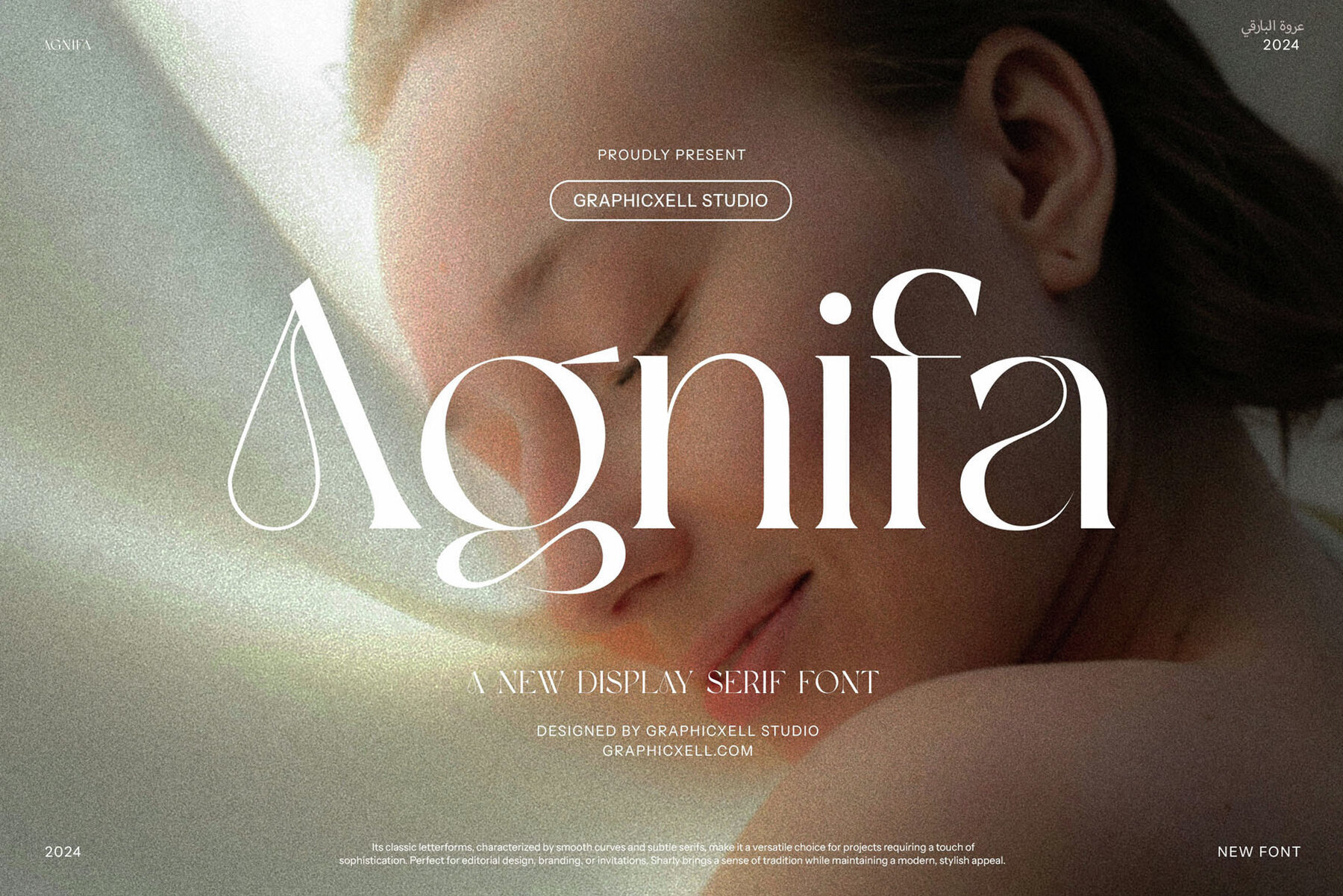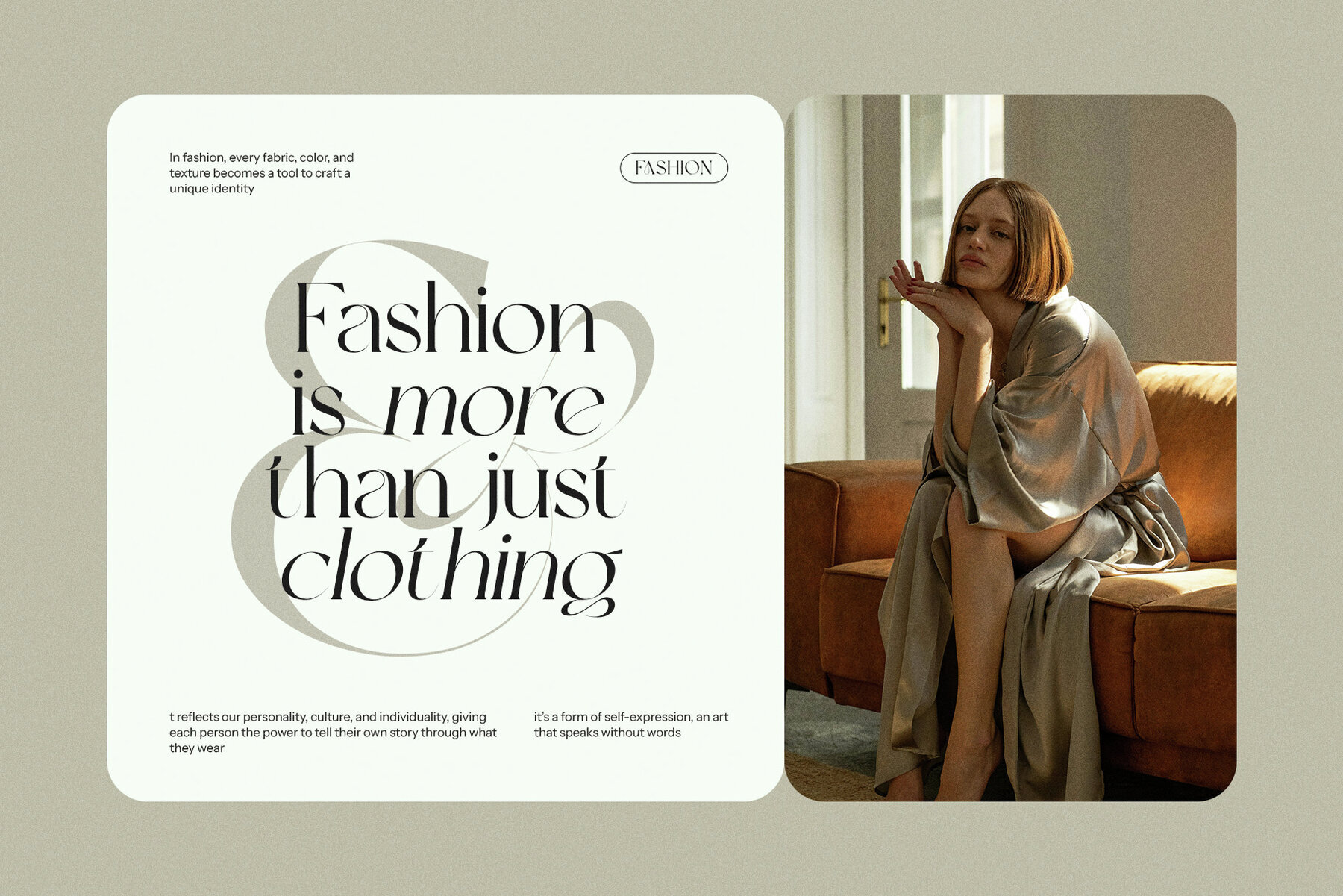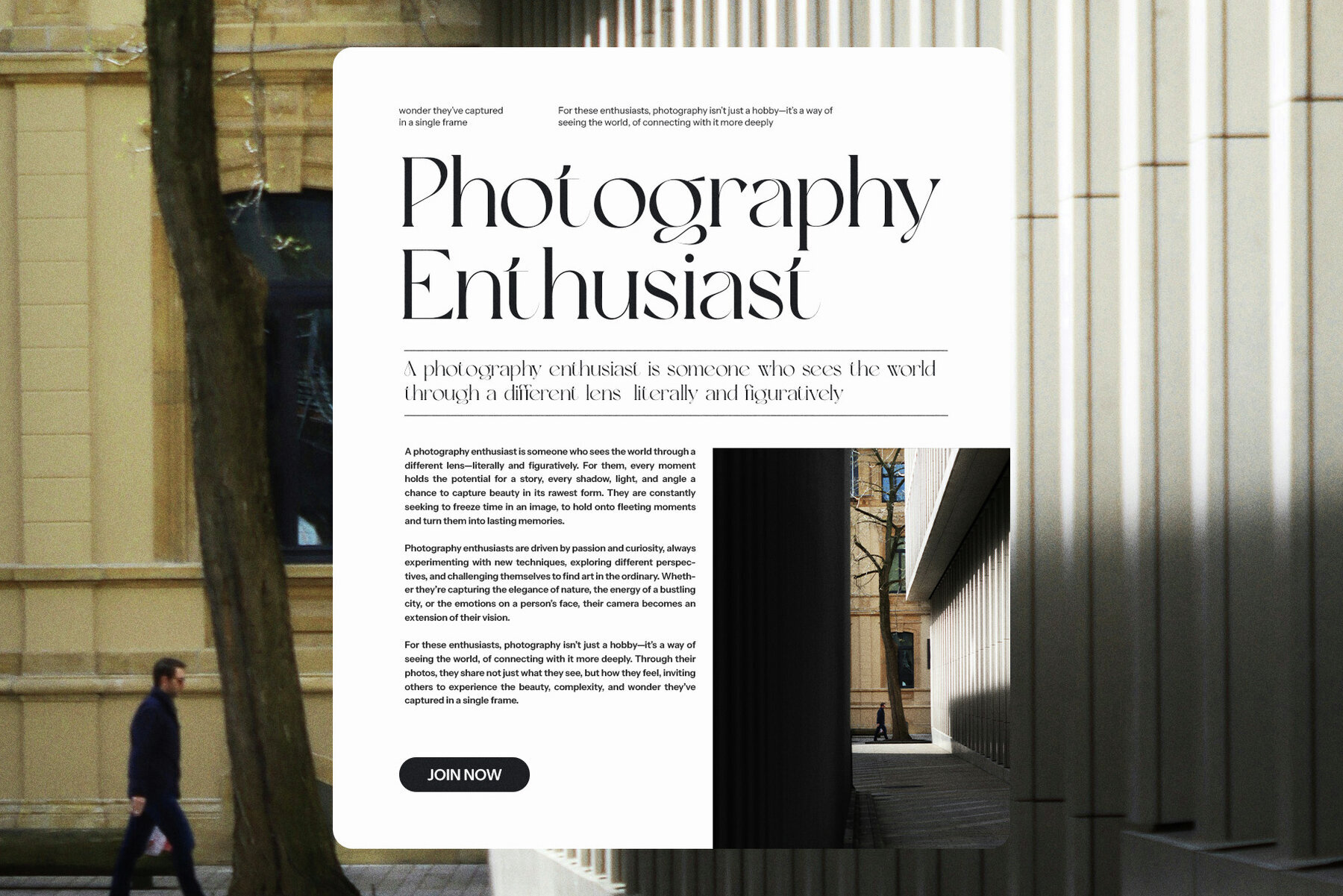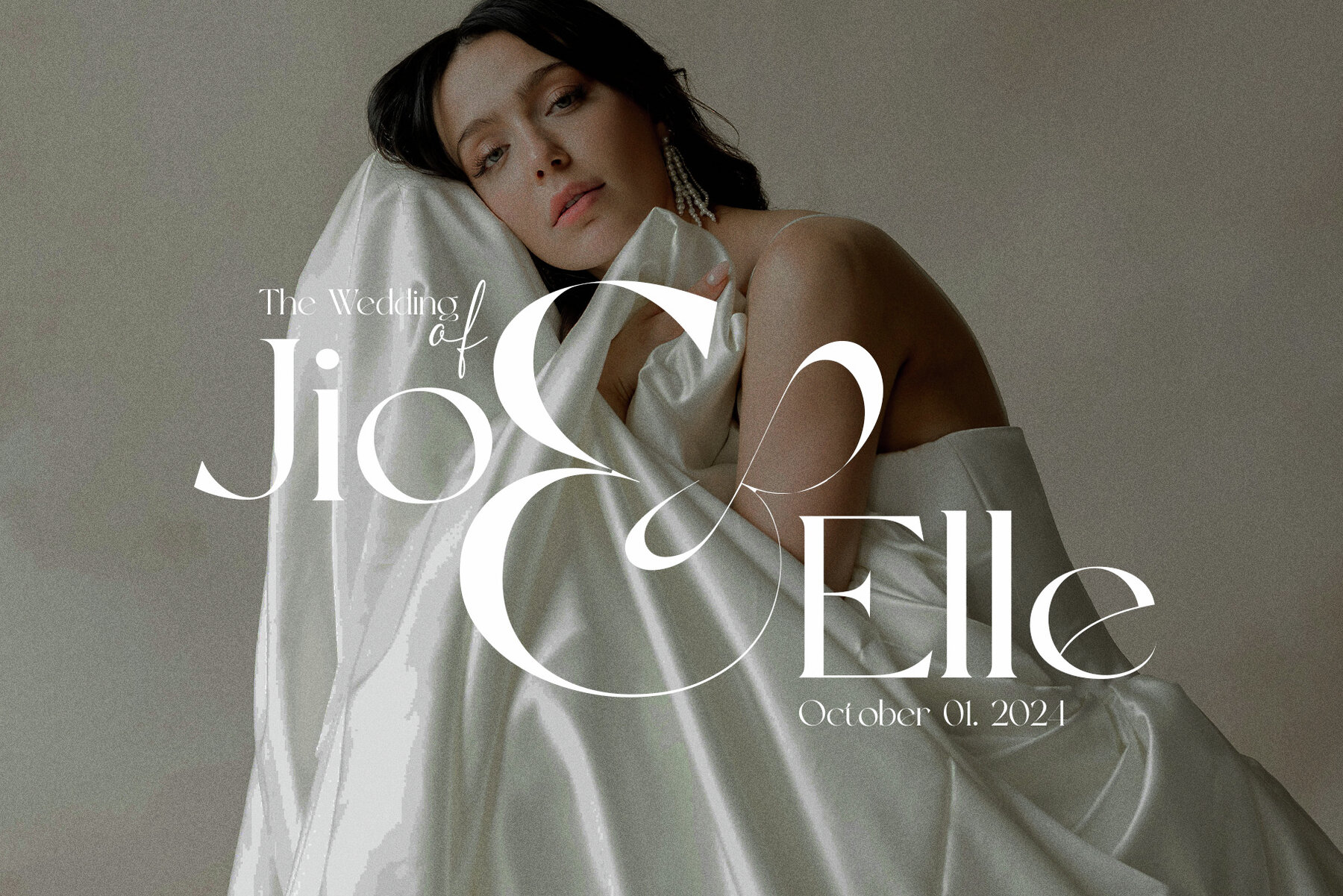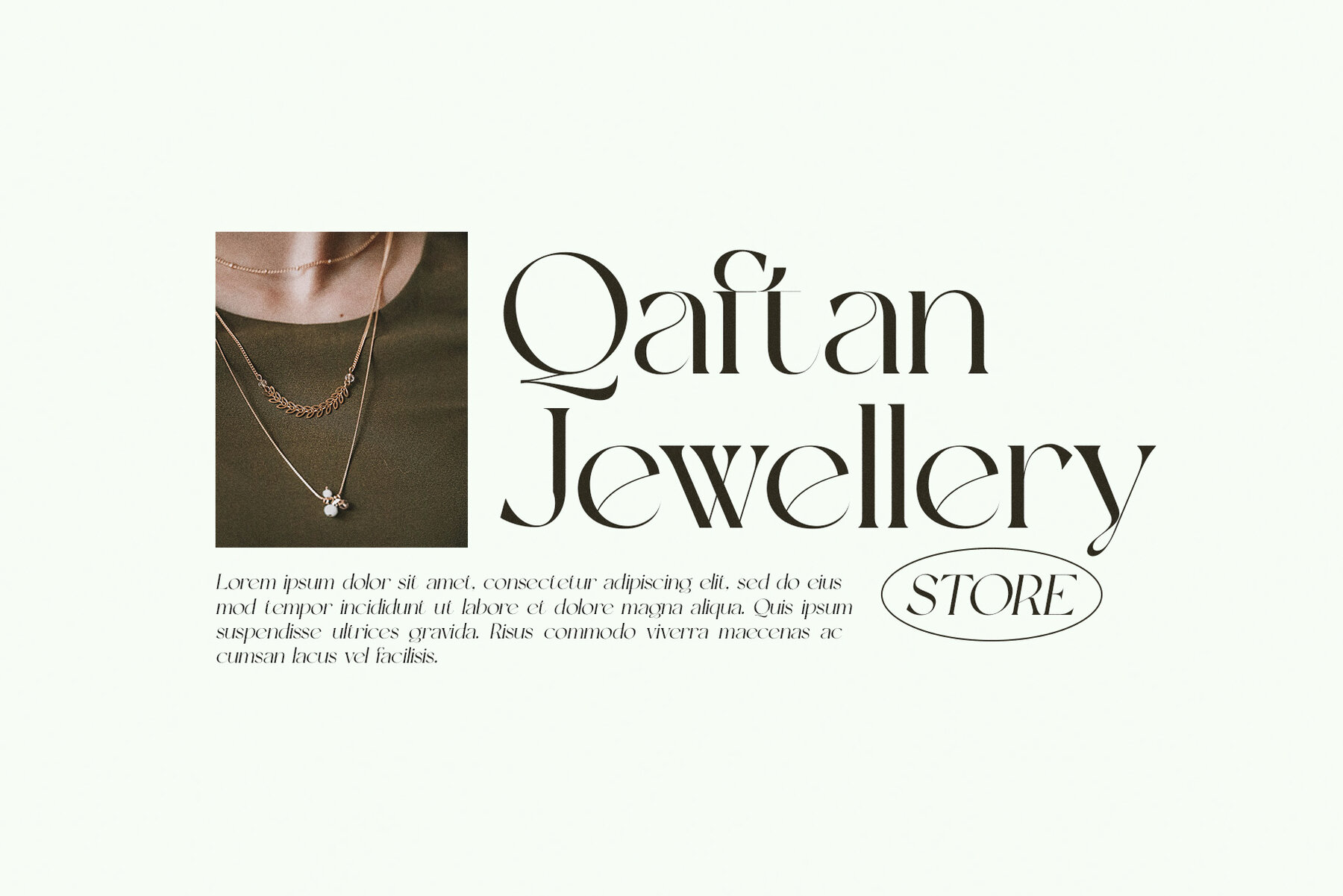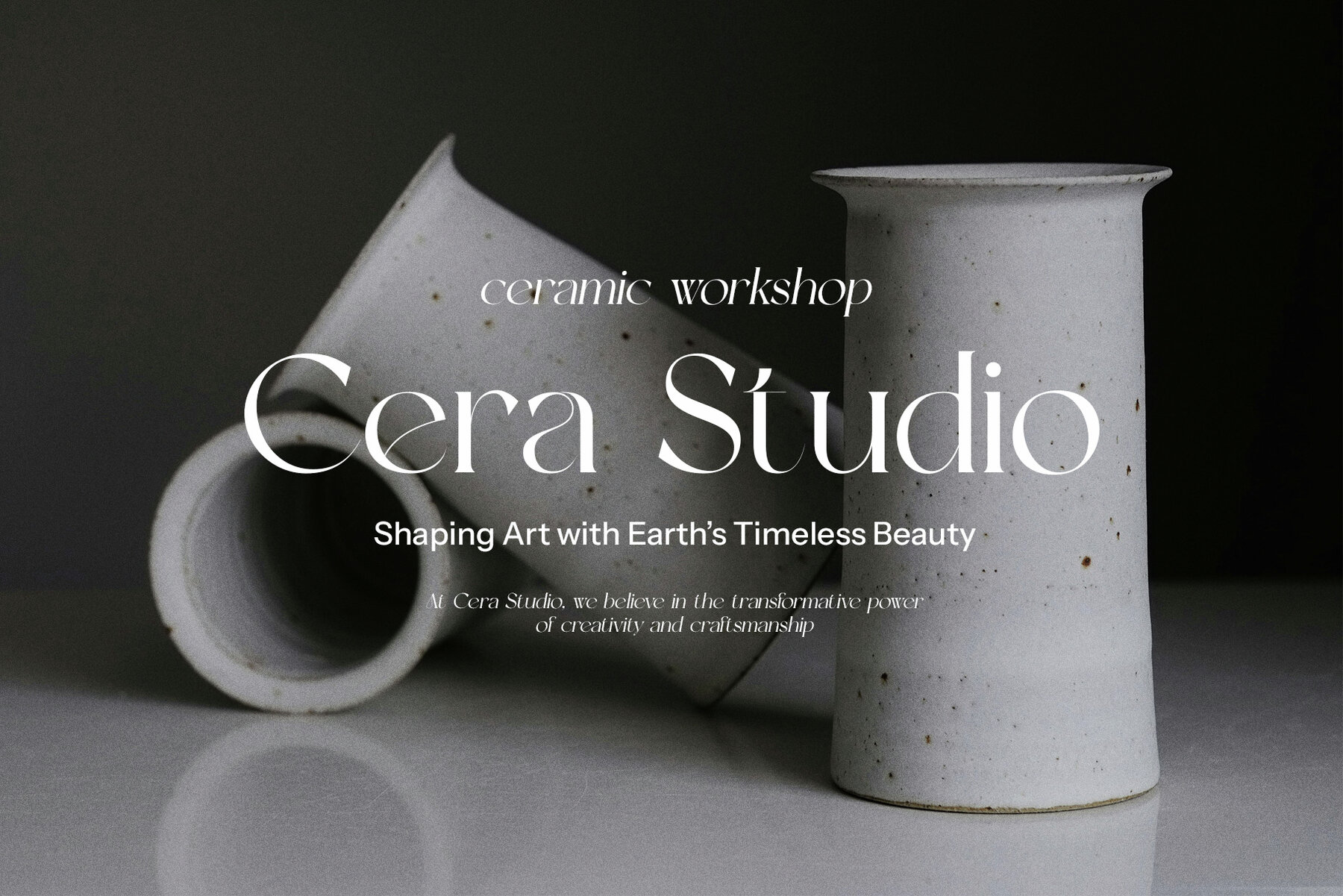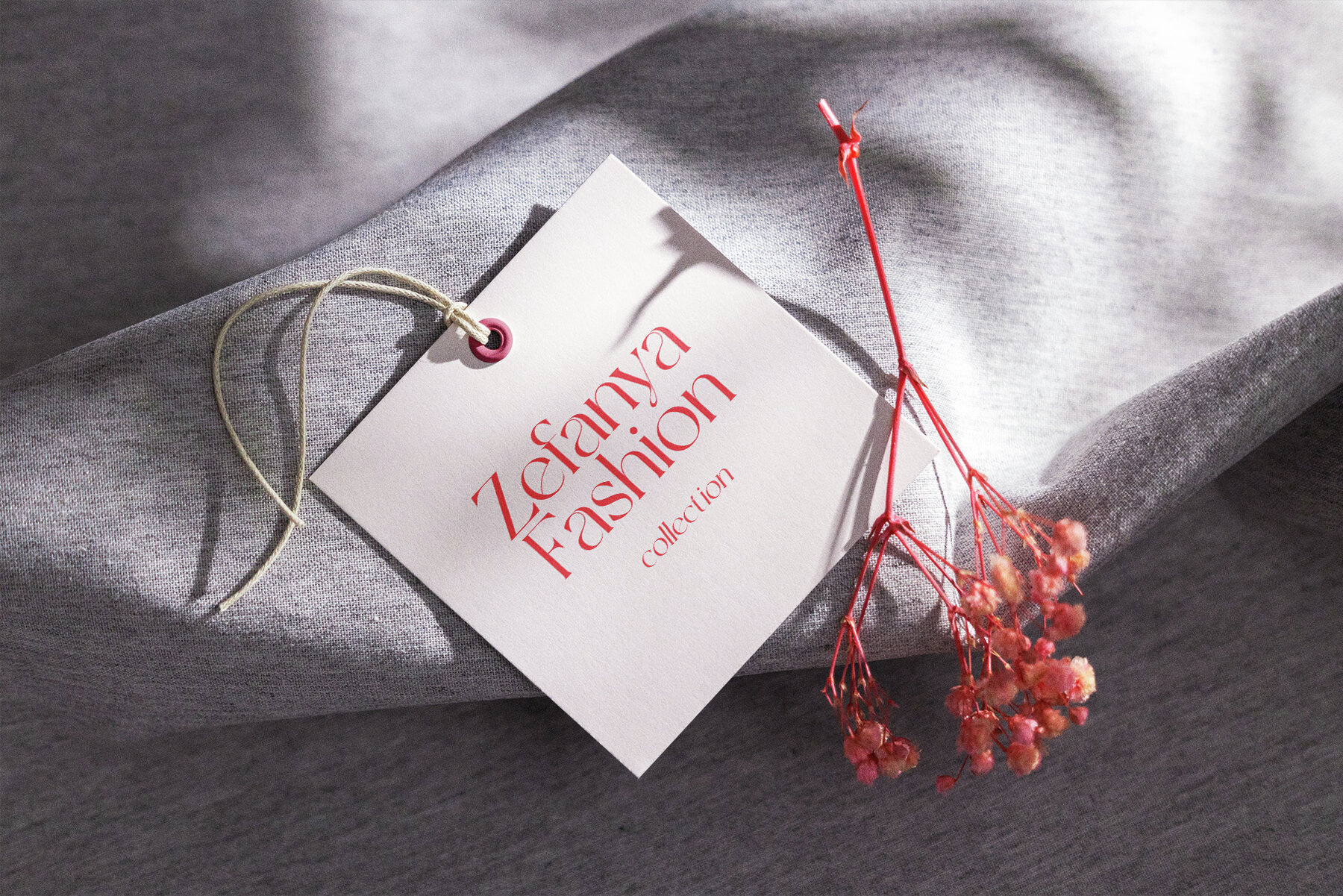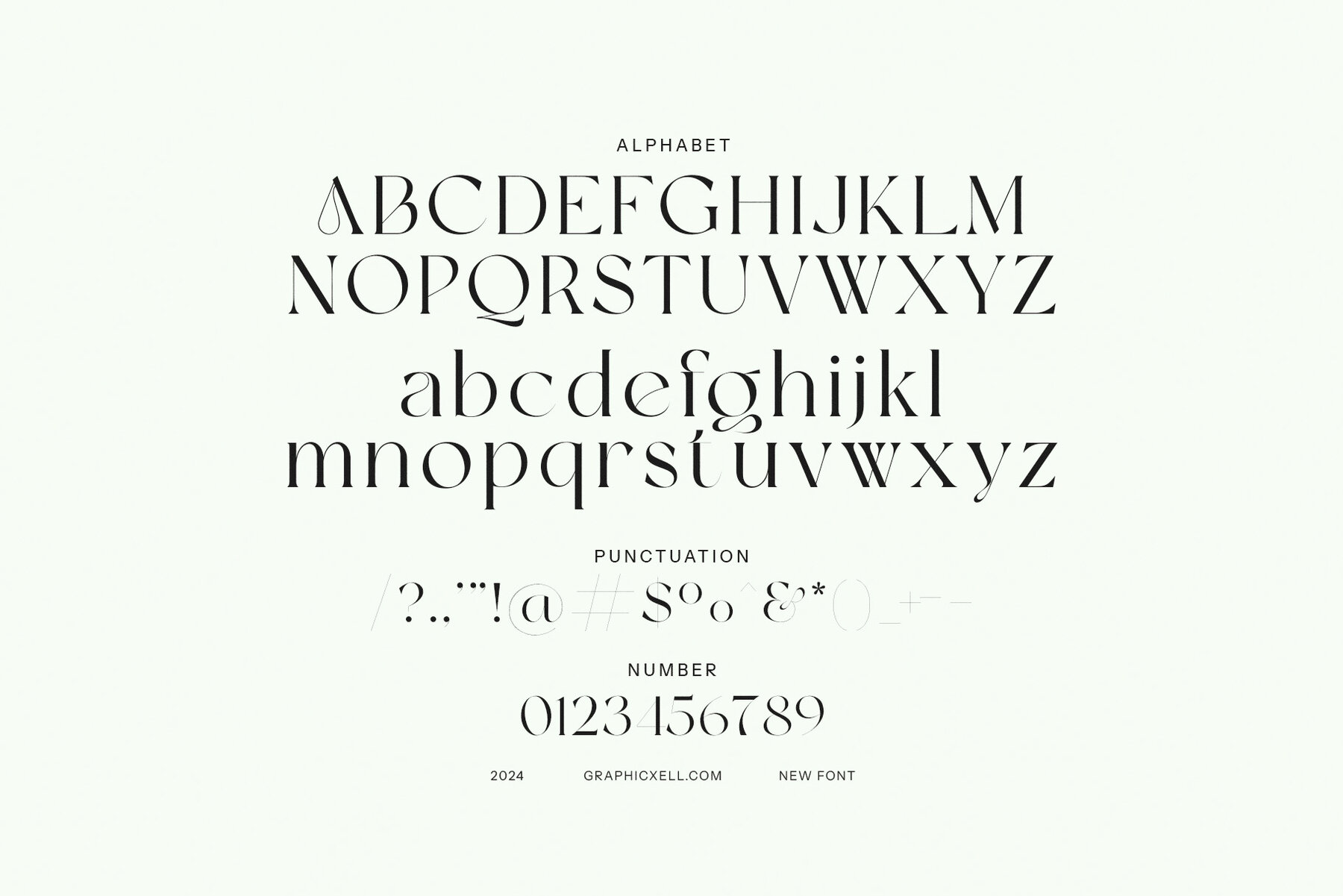
Agnifa Font
Agnifa
The Agnifa Modern Serif Font is a sophisticated typeface that brilliantly combines contemporary style with elegant serif details. Each letter is meticulously designed to enhance both visual appeal and readability, making it a versatile choice for designers aiming to bring a unique flair to their projects. Its refined aesthetics are perfect for creating professional and creative brand logos or for adding a touch of class to high-end fashion magazines and product packaging. Agnifa's modern serif attributes ensure your brand’s message captures attention and leaves a lasting impression on any audience.
This font excels in a variety of settings, from digital platforms to printed layouts, maintaining its clarity and impact. Its modern charm pairs beautifully with minimalist designs, yet it is dynamic enough to support more complex projects. With a wide range of ligatures and stylistic options, Agnifa encourages personalized typographic expressions. This feature promotes creativity, allowing designers to develop unique visual compositions that stand out in a competitive landscape. Use Agnifa to convey elegance and modernity, ensuring your designs deliver a lasting visual storytelling experience.